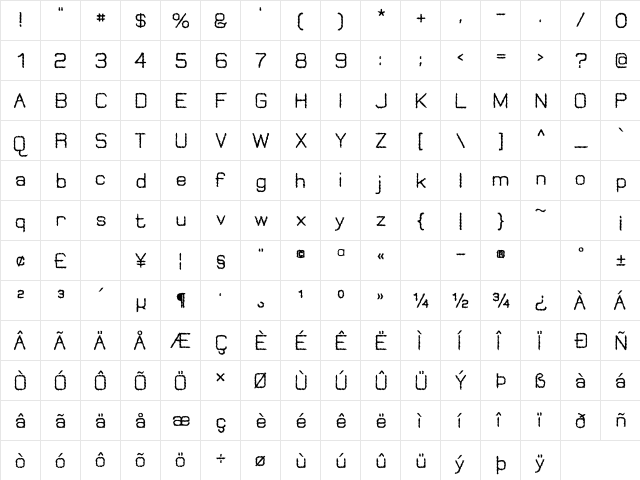
Jungle Burnout 1 Regular
Design Context for Jungle Burnout 1 Typeface
Jungle Burnout 1 is a composed and adaptable typeface that performs quietly and consistently across a wide range of design contexts.